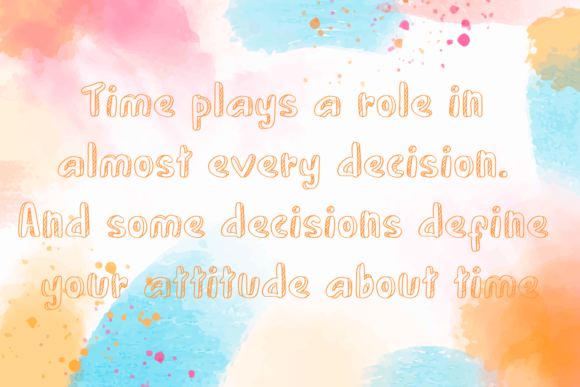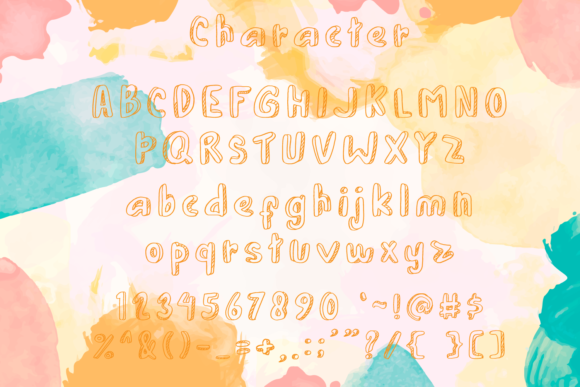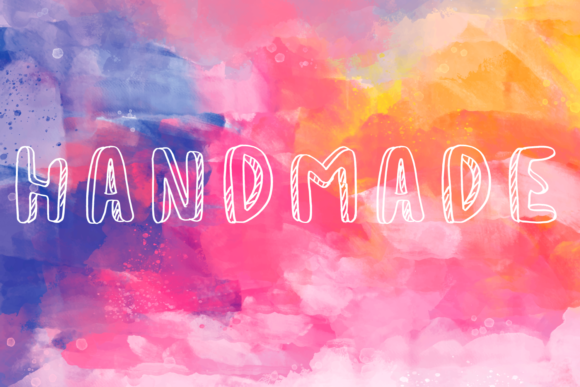
Introduction to Oregon Now Font
Oregon Now is a cute, friendly and jolly outlined display font.
Embodying authenticity and fun, this font is perfect for children themed designs, especially when combined with bright colors .